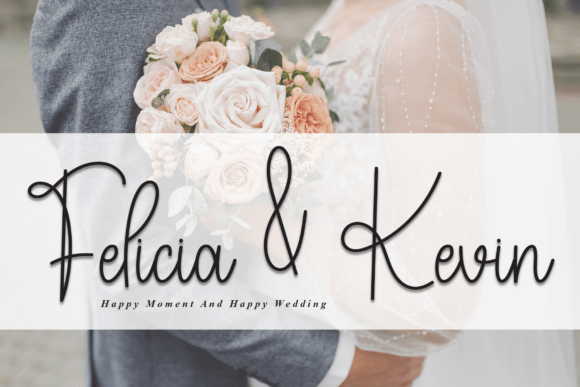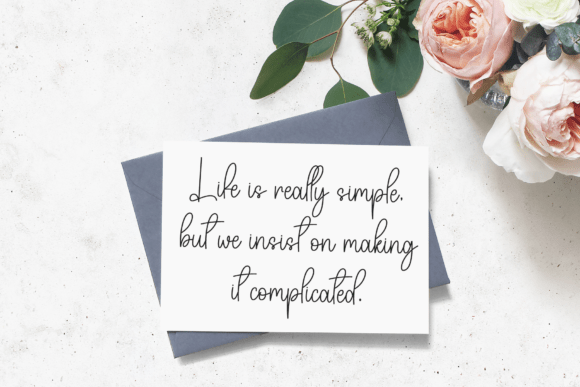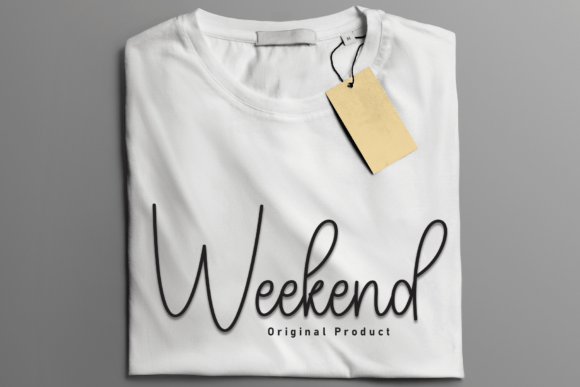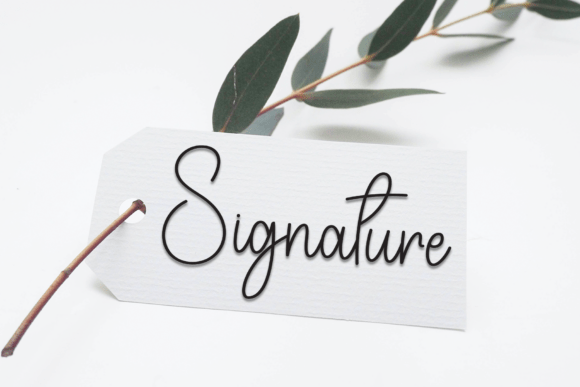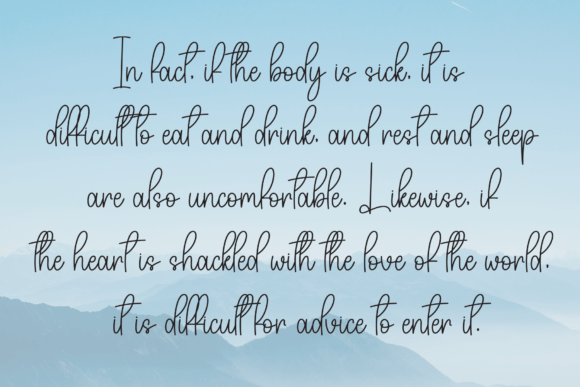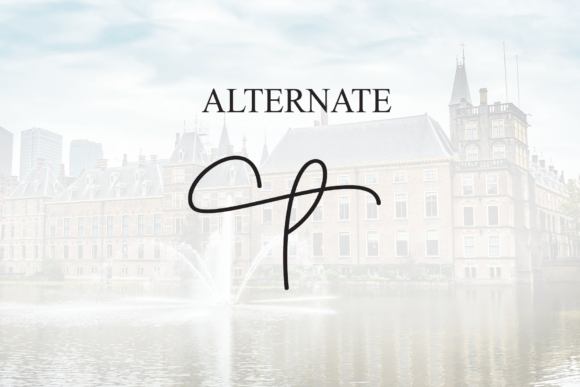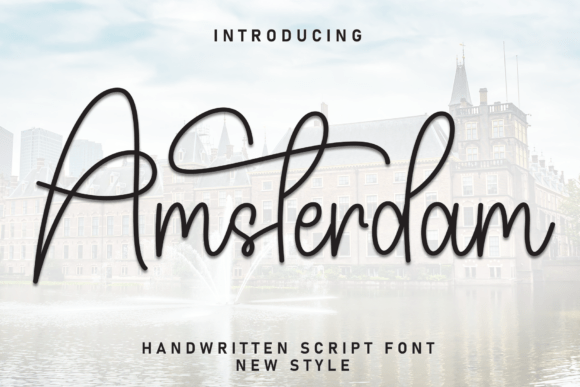
Discover the Elegance of Amsterdam Font: Elevate Your Designs with a Touch of Class
Are you on the hunt for a font that exudes sophistication, elegance, and a dash of modern flair? Look no further than the Amsterdam Font. This exquisite handwritten font is meticulously crafted to capture the hearts of designers and crafters alike, offering the perfect blend of classic calligraphic influences and contemporary freshness.
The Essence of Amsterdam Font
Amsterdam Font stands out in the world of typography with its unique ability to marry traditional calligraphy with modern design sensibilities. This font is not just a collection of letters; it’s an experience. It brings to the table a level of sophistication that can elevate any project from mundane to magnificent. Whether you’re working on a branding project, a wedding invitation, a packaging design, or a digital interface, Amsterdam Font offers the versatility and elegance you need.
Why Fall in Love with Amsterdam Font?
- Classy Calligraphic Influences: Amsterdam Font is deeply rooted in calligraphic traditions, offering a level of refinement and poise that’s hard to find in digital fonts. Each letter is a testament to the art of handwriting, bringing a personal touch to your designs.
- Contemporary and Fresh: While it maintains a classic feel, Amsterdam Font is undeniably modern. Its clean lines and fluid strokes ensure that your designs feel current and relevant, perfect for brands and projects looking to make a statement.
- Versatility: From luxury branding to elegant stationery, and from web design to print materials, Amsterdam Font adapts seamlessly to various design needs. Its flexibility makes it an invaluable asset in any designer’s toolkit.
- Emotional Connection: Fonts have the power to evoke emotions, and Amsterdam Font is no exception. Its warm and inviting feel can help create a strong emotional connection with your audience, making your designs more impactful.
How to Use Amsterdam Font Effectively
Integrating Amsterdam Font into your projects is straightforward, but here are a few tips to ensure you get the most out of this beautiful font:
- Pair it Wisely: Combine Amsterdam Font with complementary fonts to create visual interest. A sans-serif font can offer a nice contrast to Amsterdam’s elegant script.
- Play with Weights: If available, experiment with different weights of Amsterdam Font to add hierarchy and emphasis in your designs.
- Consider the Context: Think about where and how your design will be used. Amsterdam Font shines in high-end designs but might not be the best fit for more casual or playful projects.
Amsterdam Font is more than just a typeface; it’s a design statement. Its exquisite blend of traditional calligraphy and modern design makes it a versatile and elegant choice for any project. By incorporating Amsterdam Font into your designs, you’re not just choosing a font; you’re elevating your work to new heights of sophistication and style. So, fall in love with Amsterdam Font and watch your designs transform into captivating stories of elegance and class.
Whether you’re a seasoned designer or a crafting enthusiast, Amsterdam Font is sure to become your go-to choice for projects that demand a touch of luxury and a whole lot of charm. Experience the difference it can make and bring your creative visions to life with the timeless beauty of Amsterdam Font.